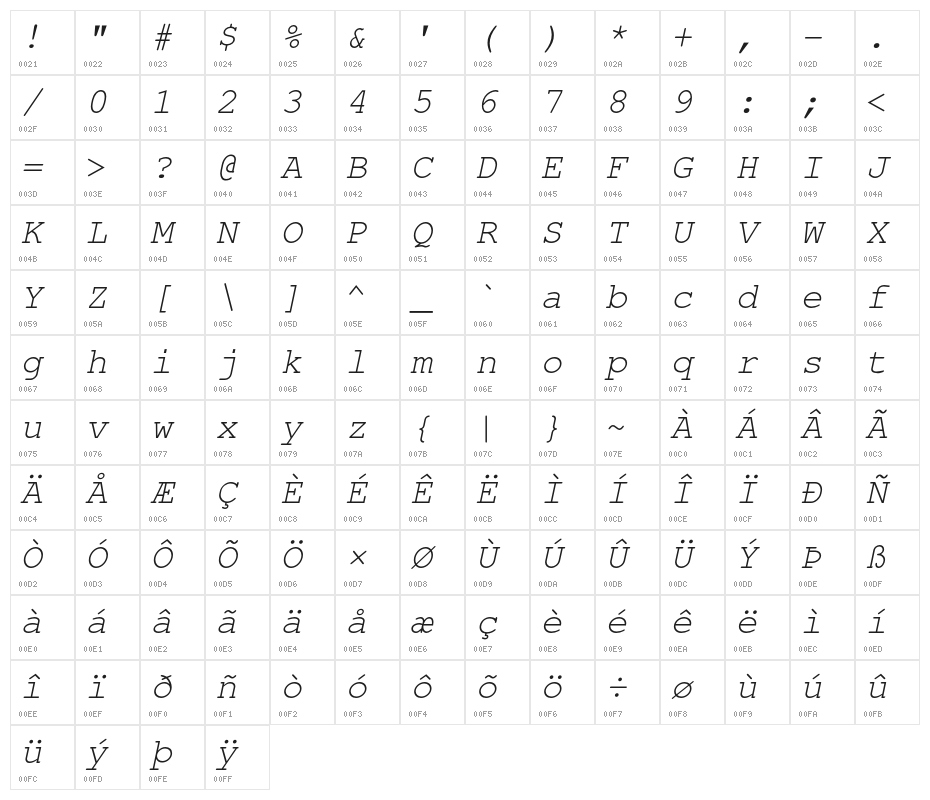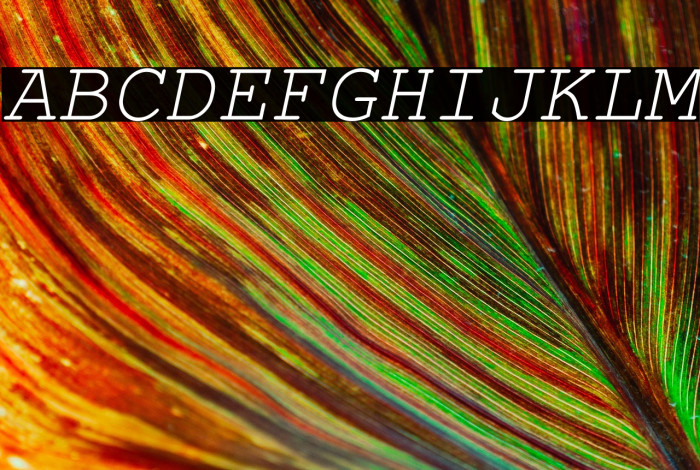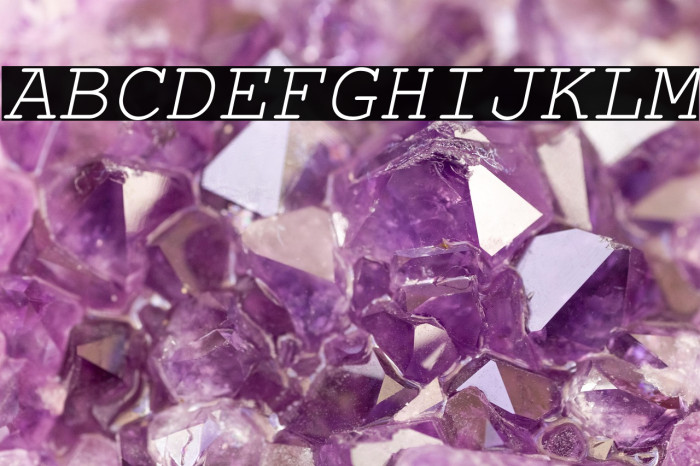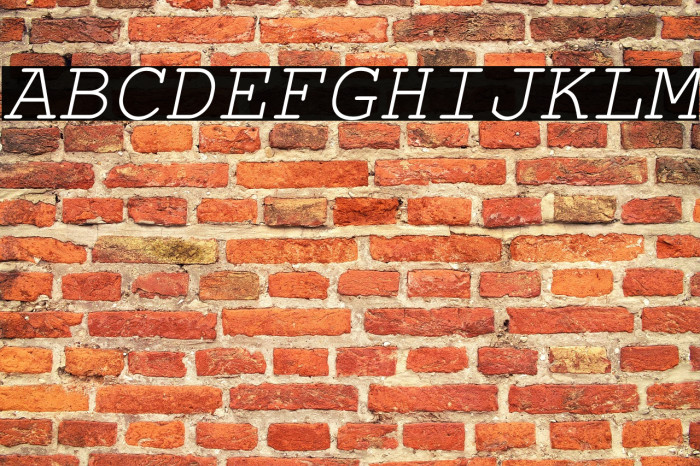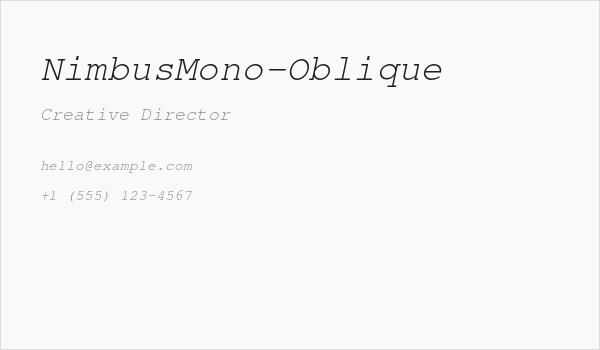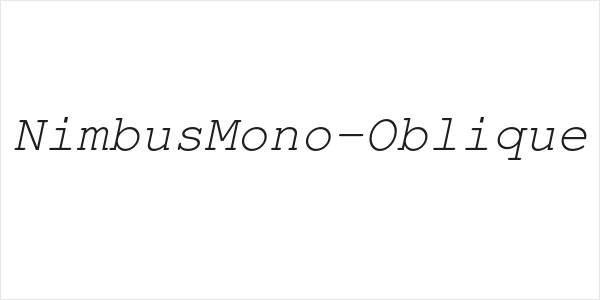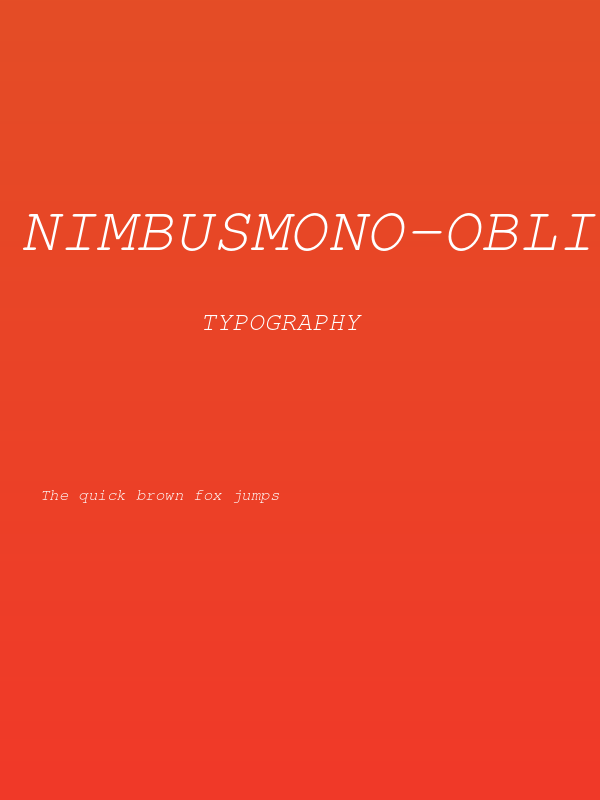
NimbusMono-Oblique Font
NimbusMono-Oblique Description
This font features a monospaced design with an oblique slant, giving it a distinctive italicized appearance while maintaining uniform character width. The characters are clean and straightforward, with a slight forward tilt that adds a dynamic feel. The consistent stroke width across all characters ensures readability and a balanced look. The font includes a full set of uppercase and lowercase letters, numerals, and a variety of punctuation marks and special characters. Its monospaced nature makes it ideal for coding and technical documents, where alignment and spacing are crucial.
| Use Case | Coding, Technical documents |
| Proposed Projects | Ideal for coding, technical documents, and any project requiring precise alignment. |